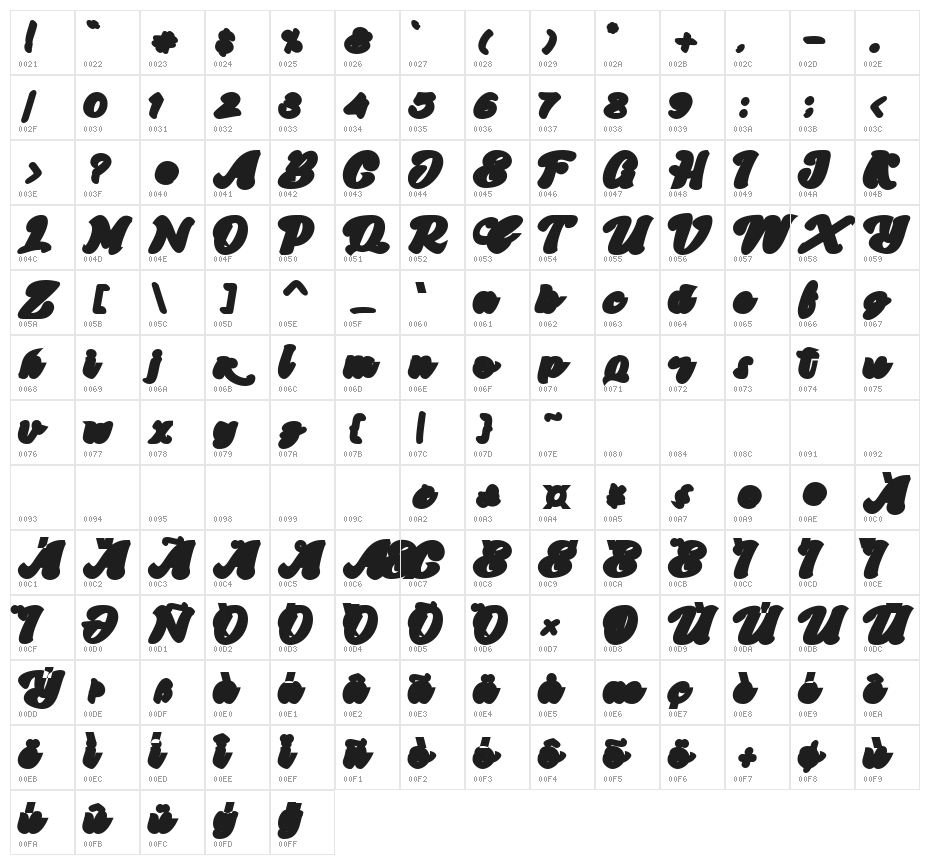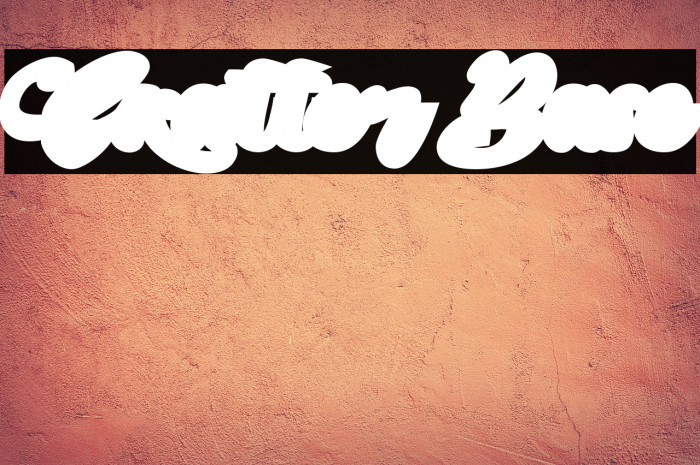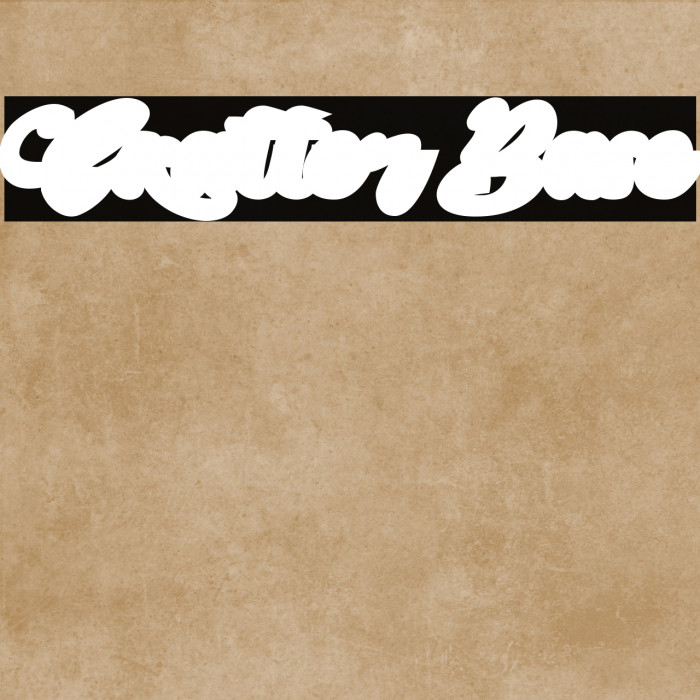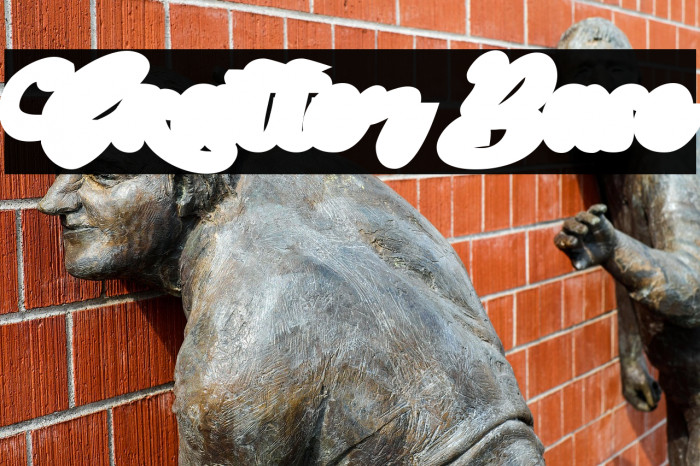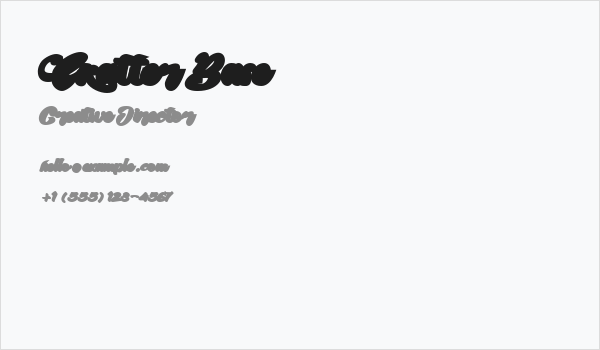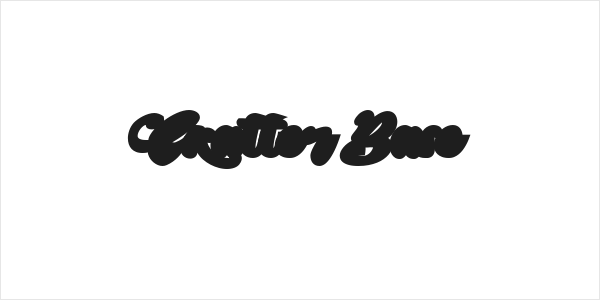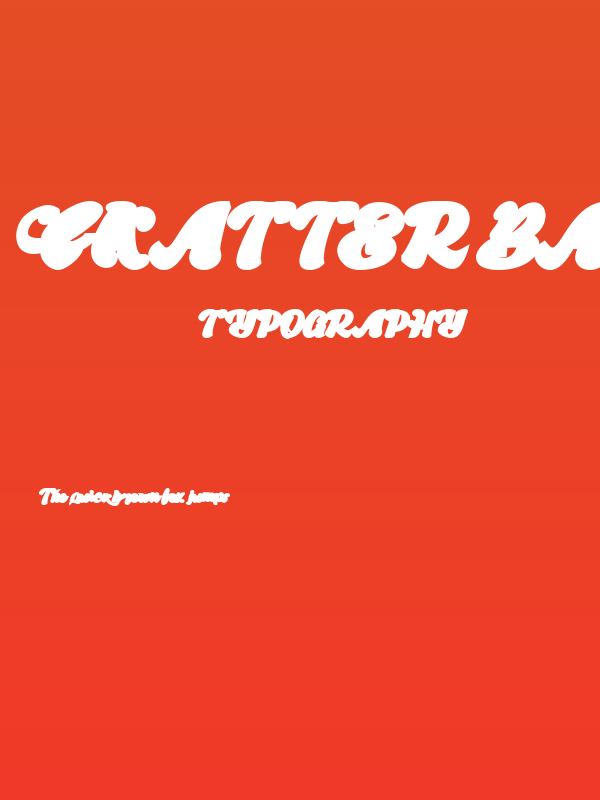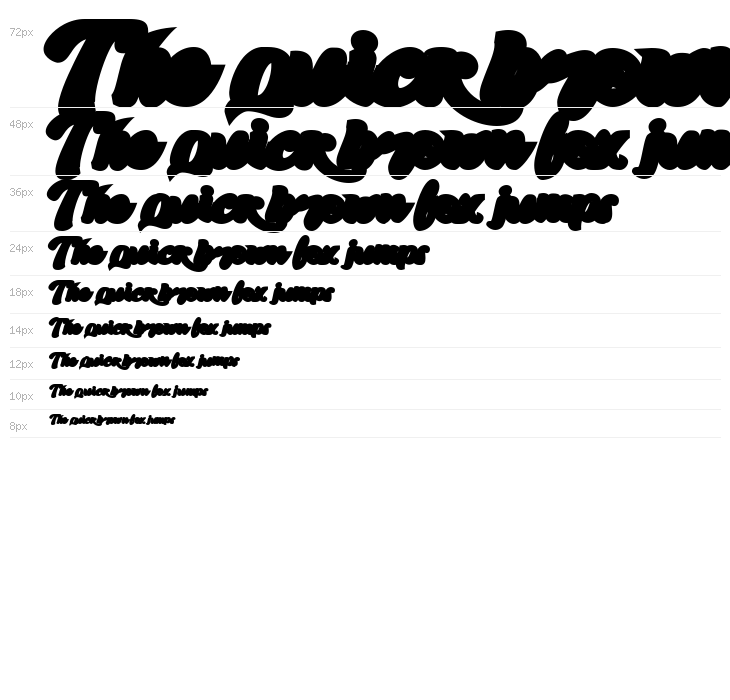
Skatter Base Font
Skatter Base Description
This bold and expressive font features a highly decorative style with thick, flowing strokes that create a sense of movement and energy. The characters are interconnected, giving it a cohesive and unified appearance. The uppercase and lowercase letters maintain a consistent style, with rounded edges and a playful, artistic flair. The numerals and special characters are designed to match the overall aesthetic, ensuring a harmonious look across all text. This font is perfect for projects that require a bold statement and a touch of creativity.
| Proposed Projects | Ideal for posters, branding, logos, and creative design projects that require a bold and artistic touch. |